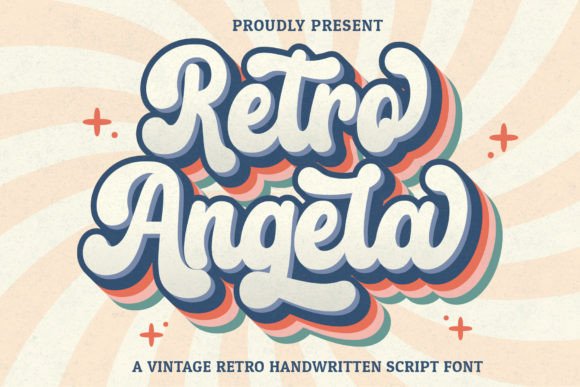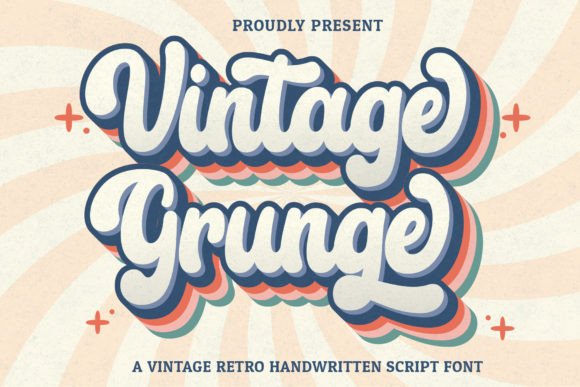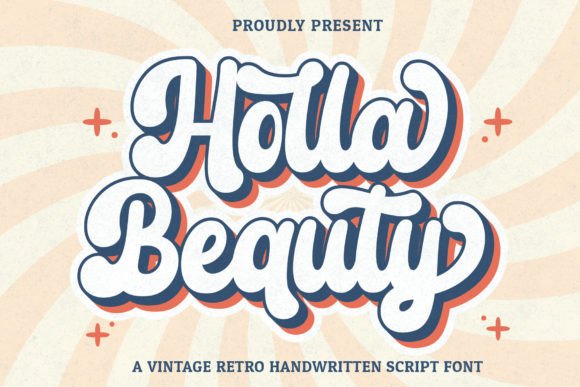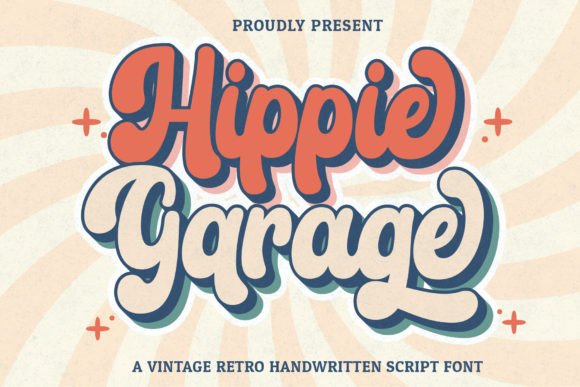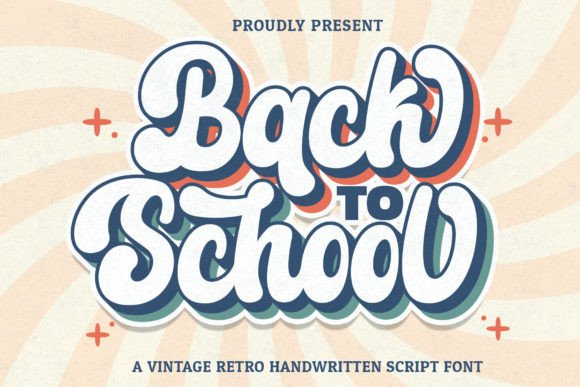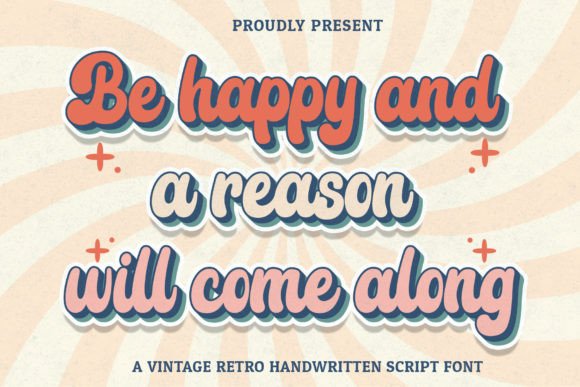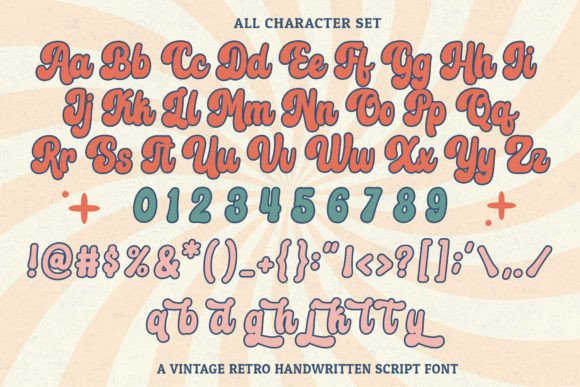
Retro Angela Script is a cool, vintage-style handwritten font. Use it to add that special retro touch to any design idea! It can be used for logos, branding, invitations, stationery, wedding designs, social media posts, and much more!
Retro Angela Font